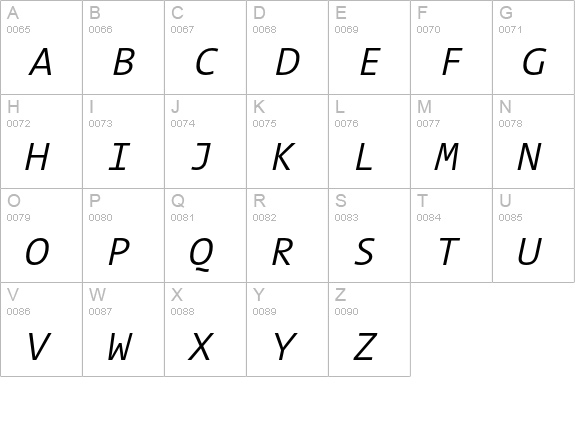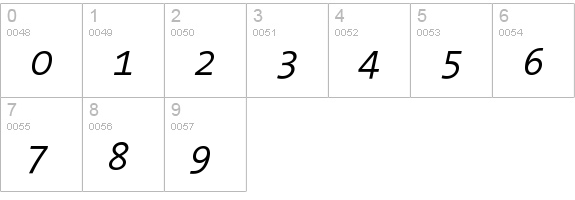
TheSansMono Semi Light Italic Font Details
TheSansMono Semi Light Italic is a refined, elegant, italic variant in the TheSansMono typeface family \xE2\x80\x94 well suited to elegant body text, refined sub-headings, and luxury branding.
TheSansMono Semi Light Italic font is a stylish and modern typeface that combines elegance with versatility. Its semi-light weight adds a touch of sophistication, making it perfect for various design projects. The italic style adds a subtle sense of movement and playfulness to the characters, lending them a unique and dynamic appearance. This font is a true gem for designers and typographers alike, as it offers a perfect balance between legibility and creativity. TheSansMono Semi Light Italic is designed to capture attention without overwhelming the reader, making it suitable for a wide range of applications, from branding and advertising to editorial layouts and web design. One of the best features of TheSansMono Semi Light Italic font is that it is freely available to download at FontsMarket.com. This means that designers and enthusiasts can easily access and incorporate this font into their projects without any additional cost. Its availability as a free font allows for greater accessibility and creative freedom, making it an excellent choice for both personal and commercial use. Whether you are looking to enhance the visual appeal of your website, create eye-catching print materials, or add a touch of elegance to your branding, TheSansMono Semi Light Italic font is a fantastic option. Its modern and sophisticated design, combined with its freely available status, makes it an indispensable tool for any designer or typographer seeking to make a lasting impression. Download TheSansMono Semi Light Italic font today and bring your creative vision to life.